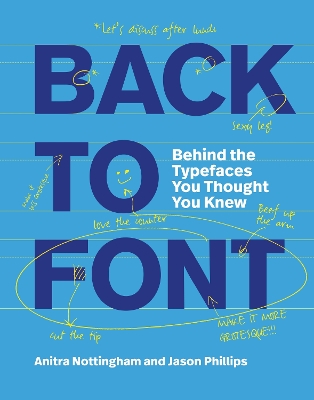
Calling all type nerds!
Get ready for a chatty and opinionated, deeply nerdy history of how 16 of the most famous typefaces were made and why they look the way they do.
Who were their "parents" and "family"? Where do they come from and how were they born? And what was happening in the world at the time that influenced their growth and use? What's pretty and interesting about them, and what isn't? How are the typefaces used (and abused), and where can we find them "in the wild"? Finally, and most importantly, Back to Font will help you decide whether to kiss, kill, or marry that typeface.
An entertaining yet authoritative text by two Australian academics will be enhanced by color illustrations showing typefaces in use. Based on the authors' podcast The Type Pod. Warning: this book may cause you to rethink your default font settings.
Contents:
Times New Roman / Gill Sans / Futura / Bodoni / Goudy / Baskerville / Akzidenz Grotesk /
Mrs Eaves / Trajan / Novarese / Bell Centennial / Foundry Sterling / Transport /
Zapf Dingbats / Univers / Papyrus